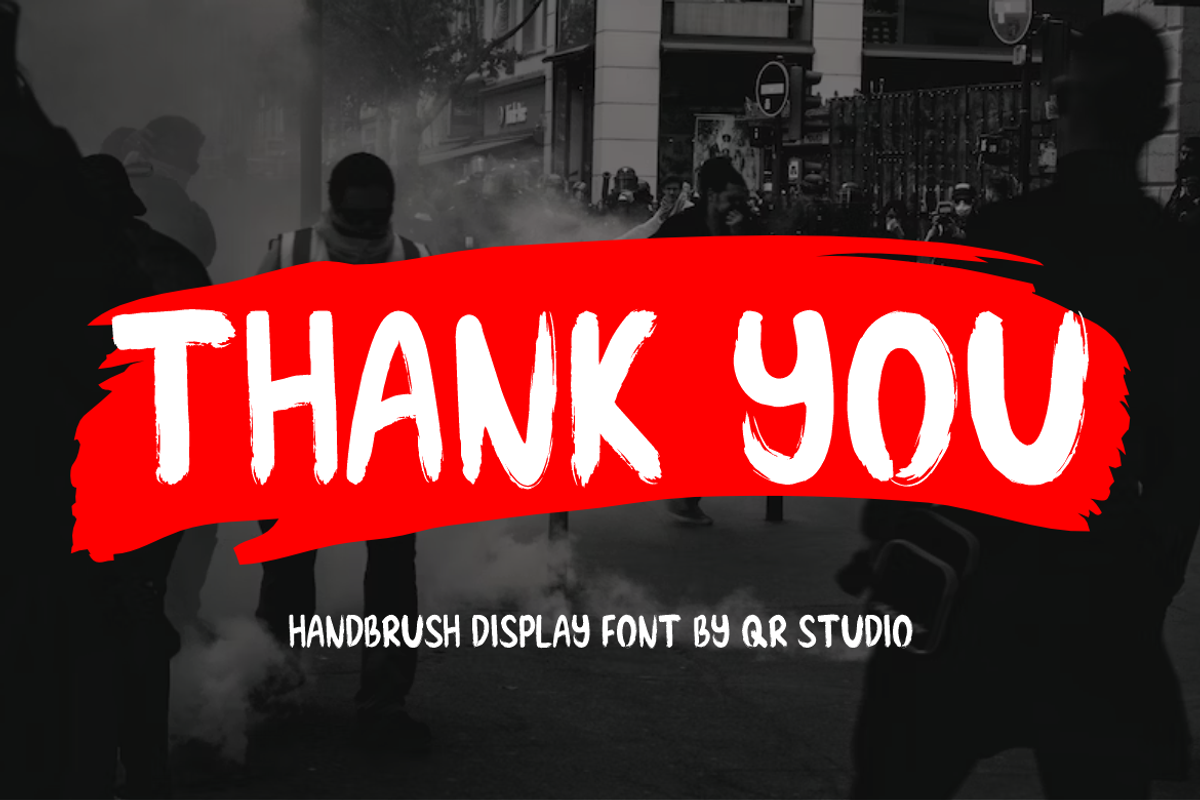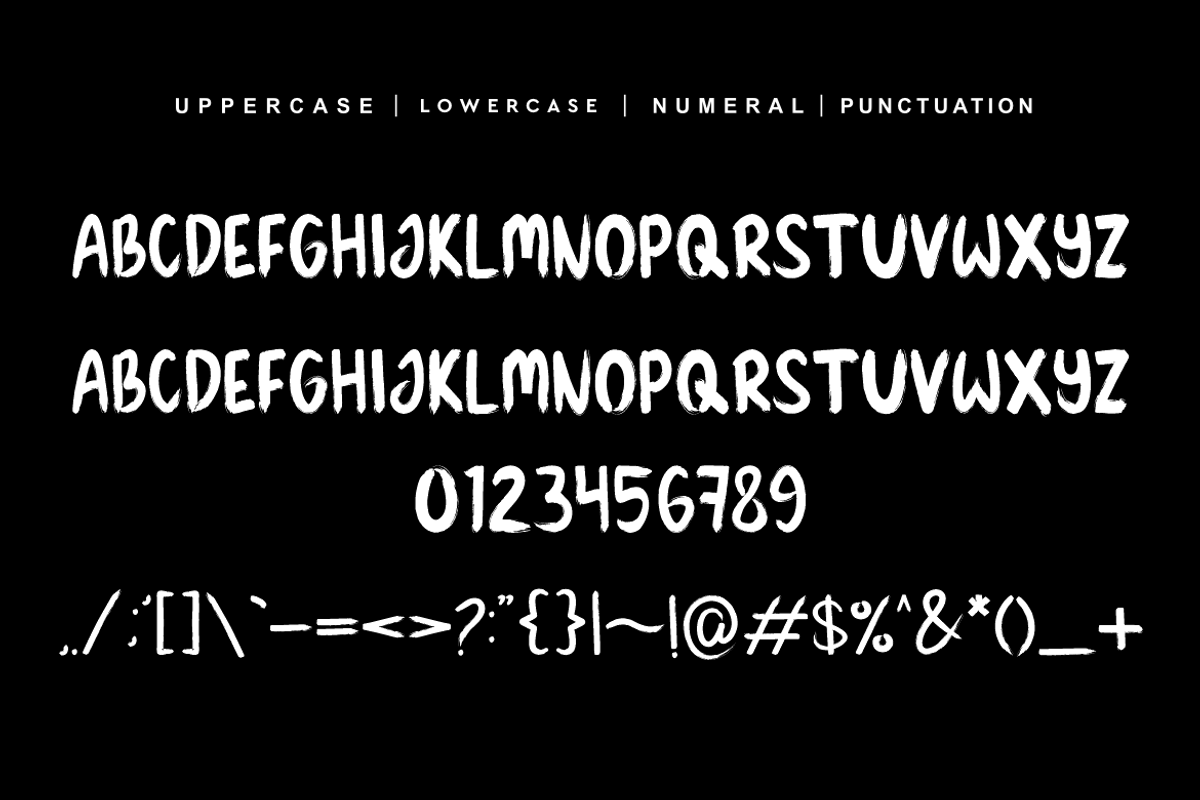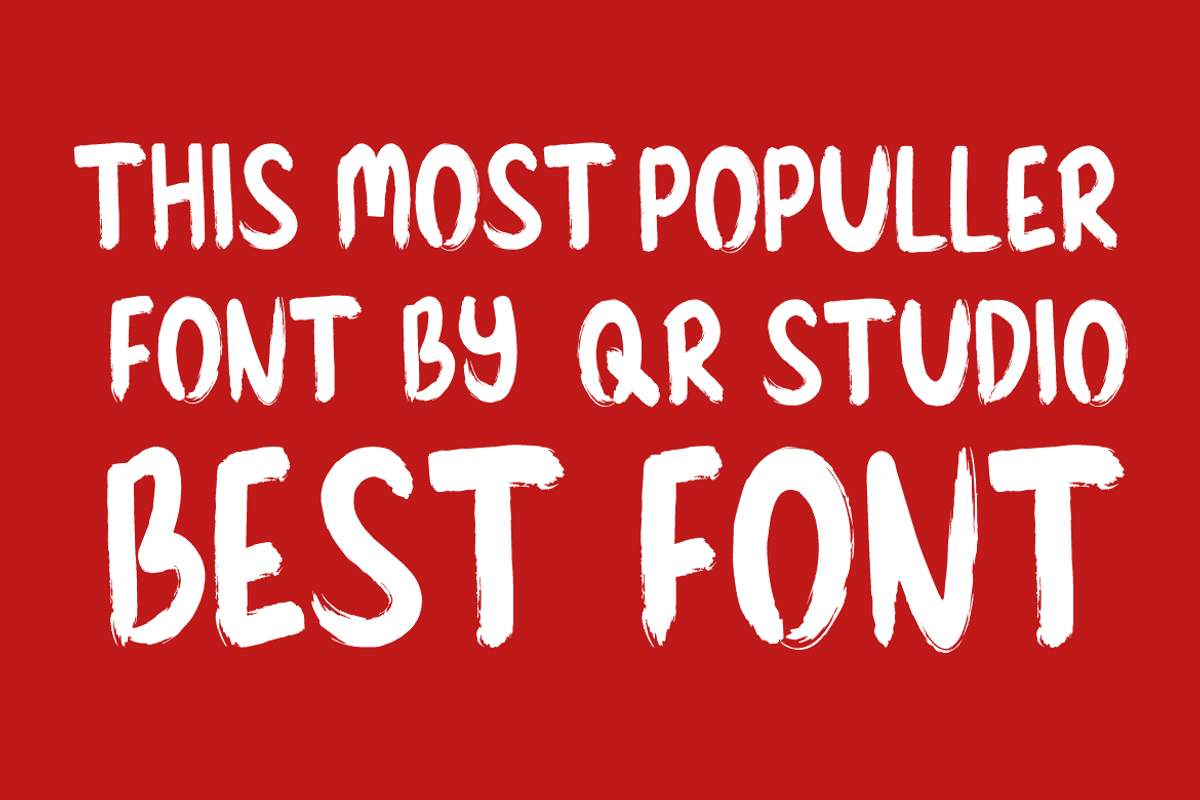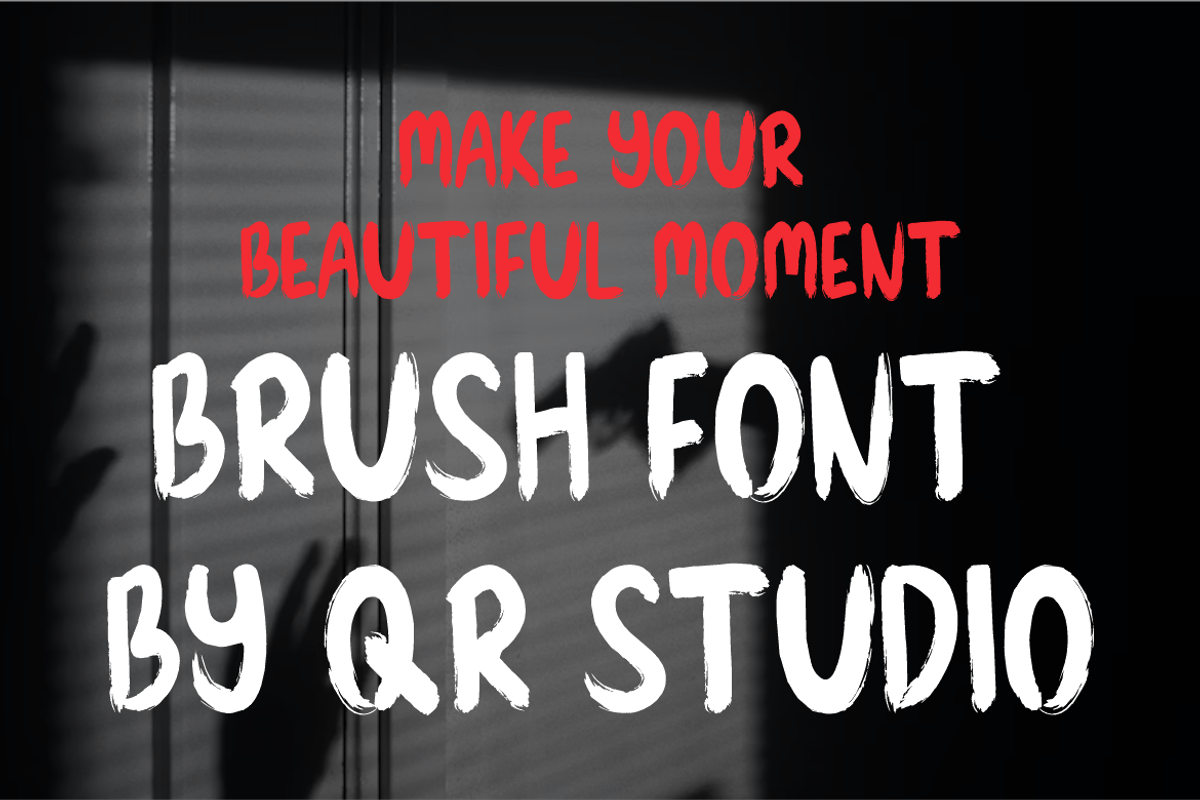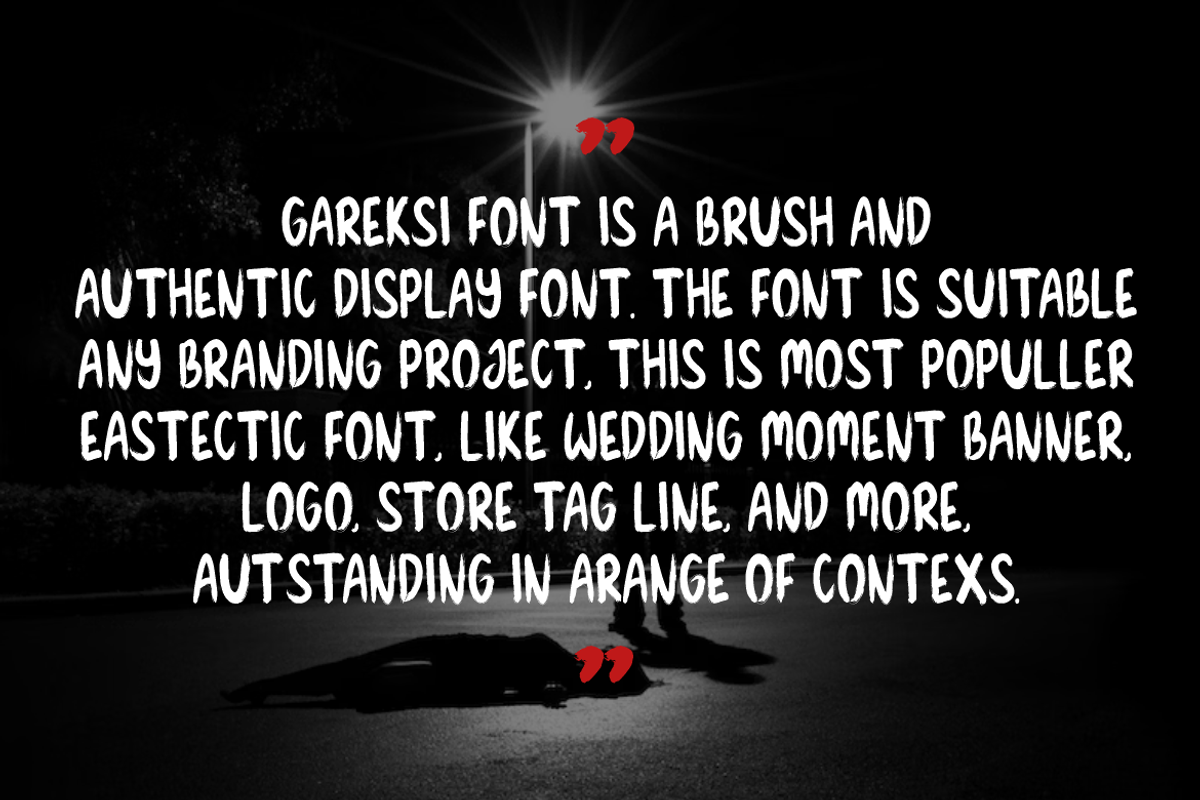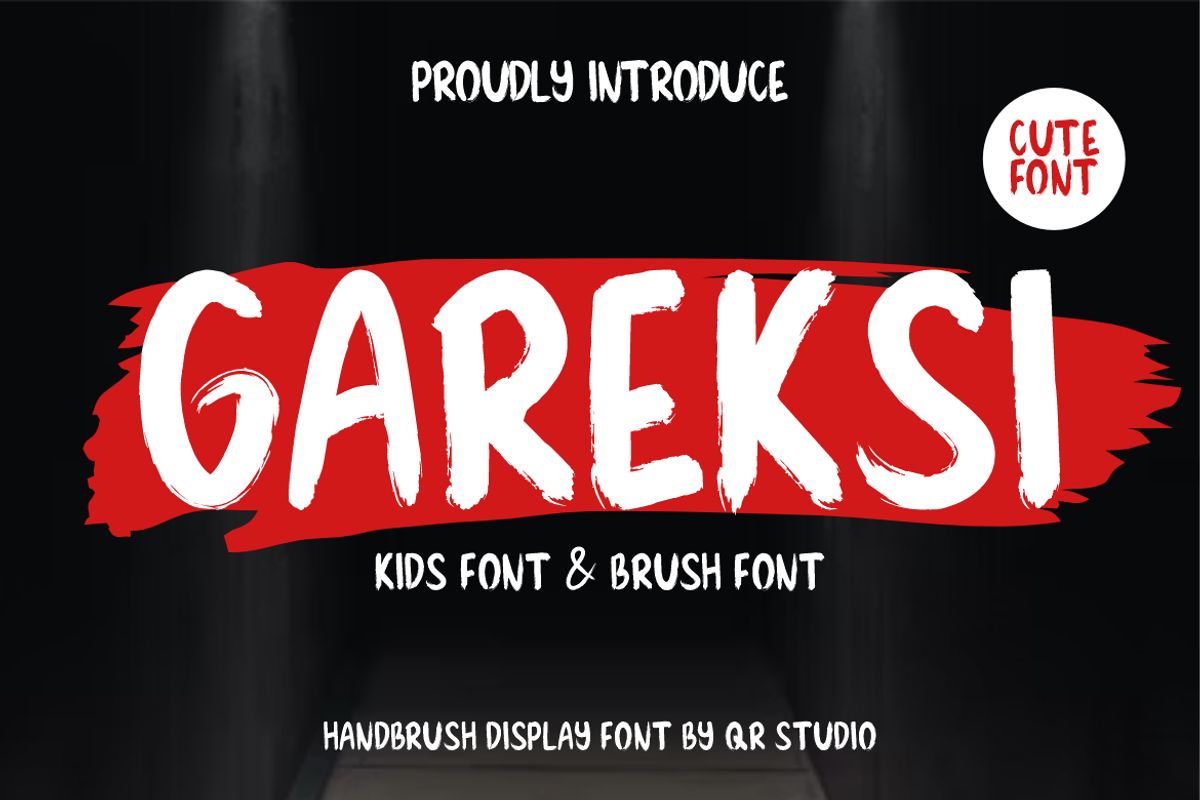
Gareksi
Gareksi Font is a bold and authentic display font. The font is suitable for any branding project like logo, sport, and many more. Outstanding in a wide range of contexts.